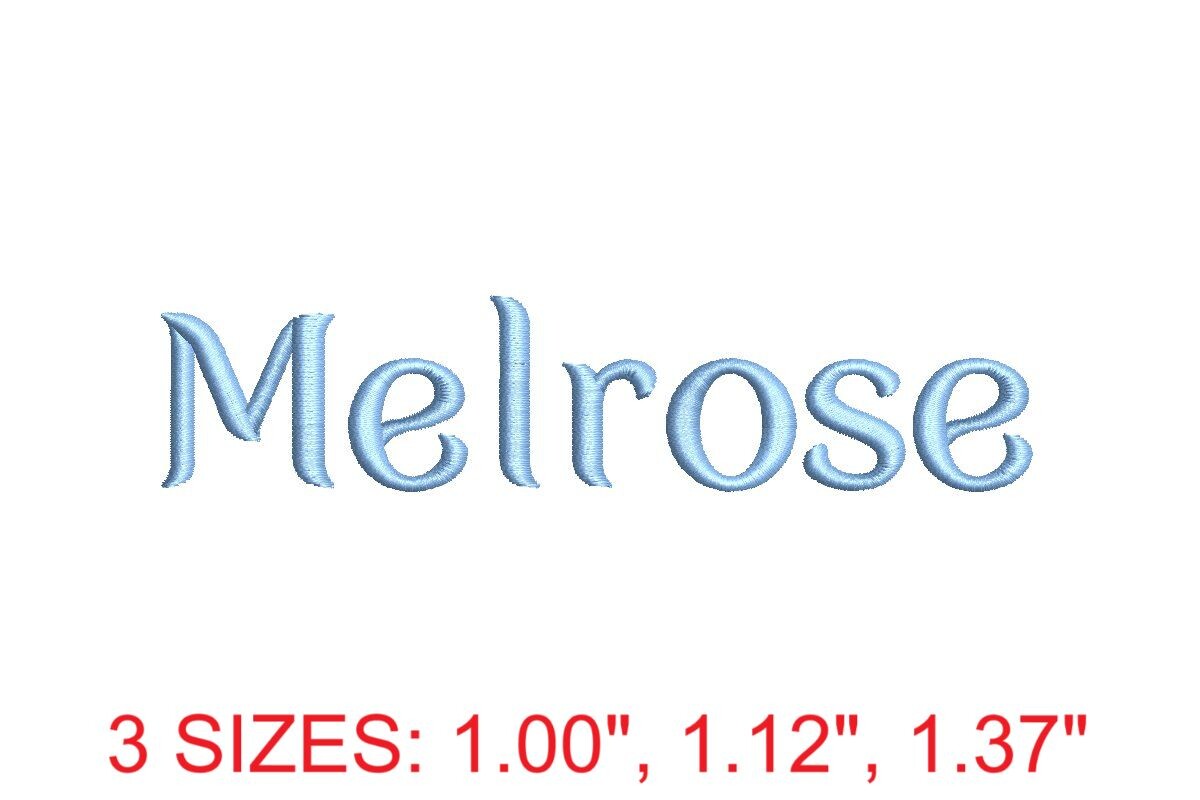
Melrose Embroidery Font
Introducing the Melrose Embroidery Font - Your Creative Stitching Partner! Elevate your embroidery projects with this elegant and versatile font. Crafted with precision, Whether you're a seasoned pro or just starting, this font's easy integration and user-friendly design make it perfect for all skill levels. Create personalized monograms, embellish fabrics, or add intricate lettering effortlessly. With Melrose, your creative possibilities are limitless. Please note: The sizes and stitches information shown below is for "A" and "a" in each size. This is provided as a summary of what is available in this download file. For the full dimension details of the 156 letters in this set, click on the More Sewing Info (PDF) button on this page. This machine embroidery design comes with multiple embroidery file formats and can be used with multiple embroidery machines.